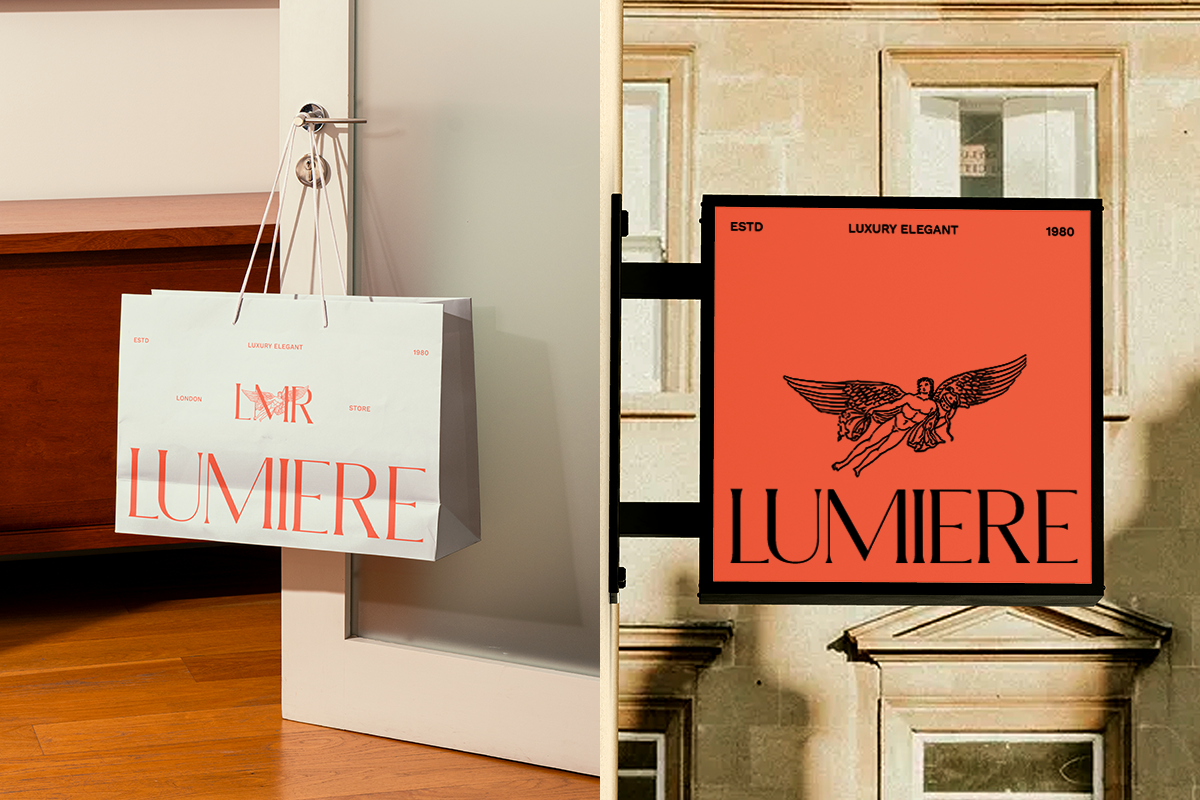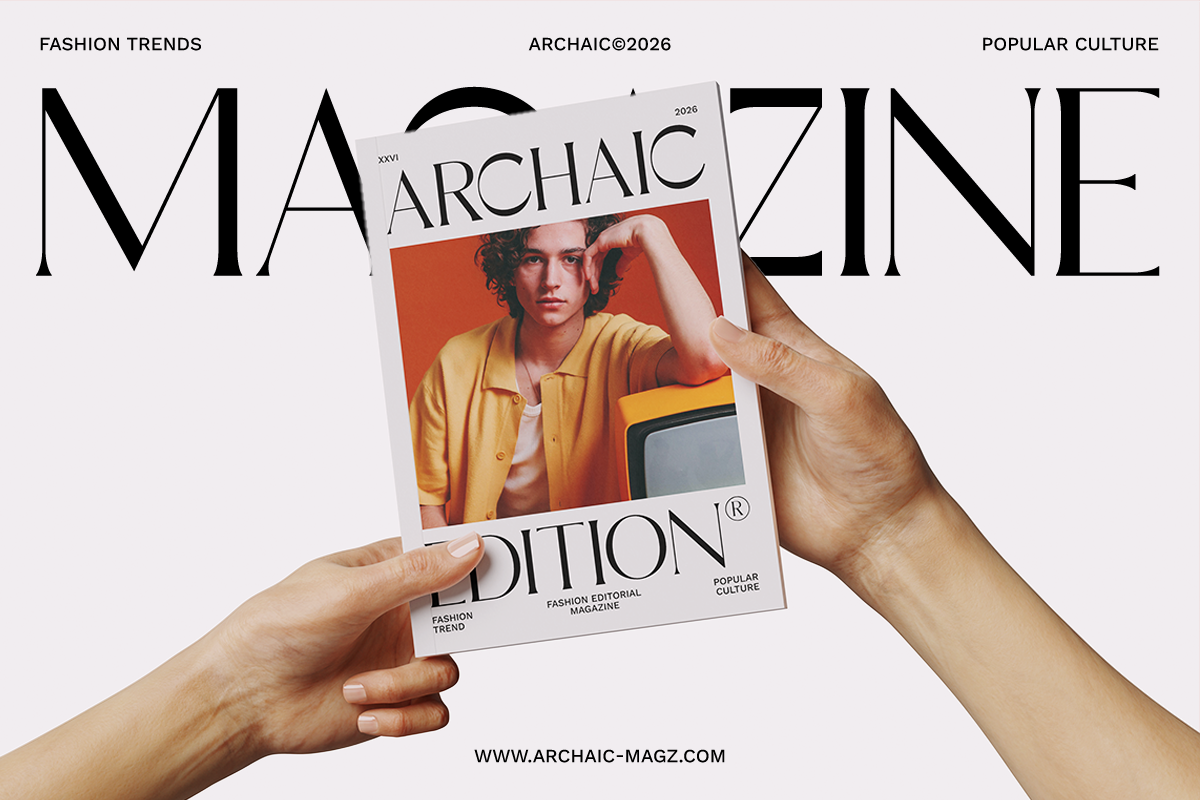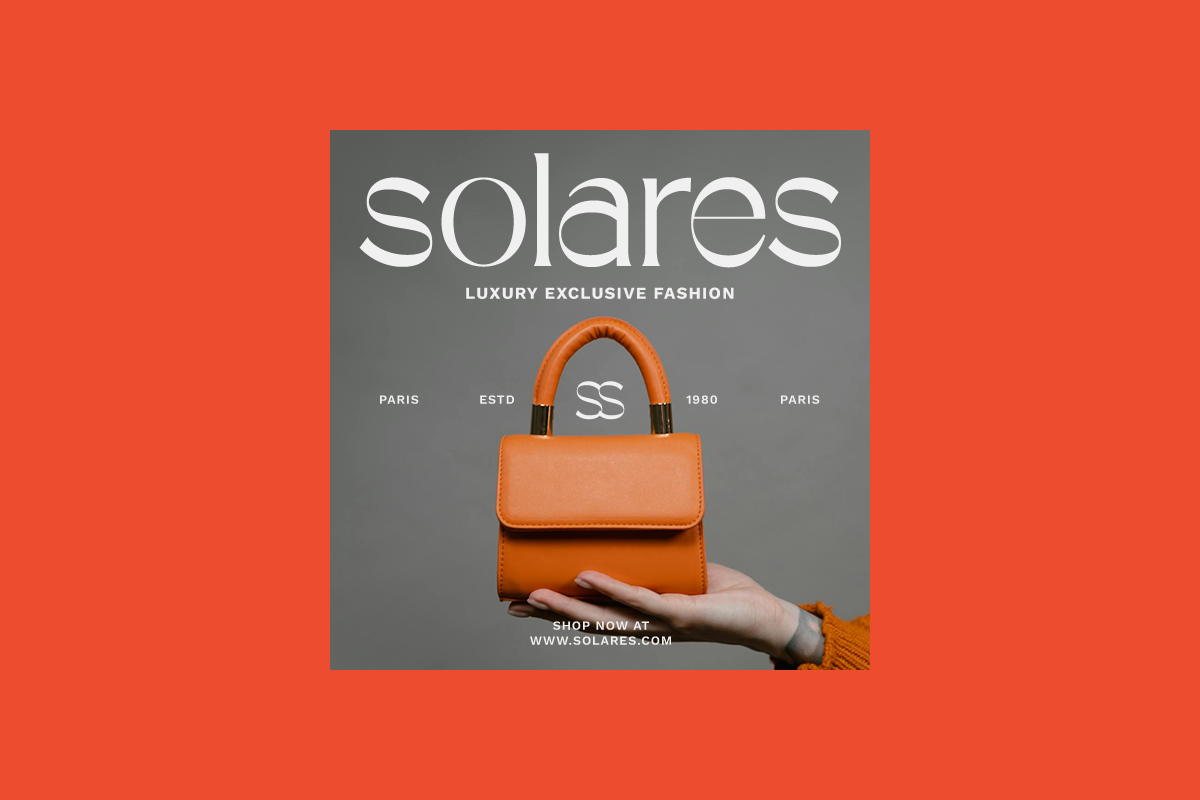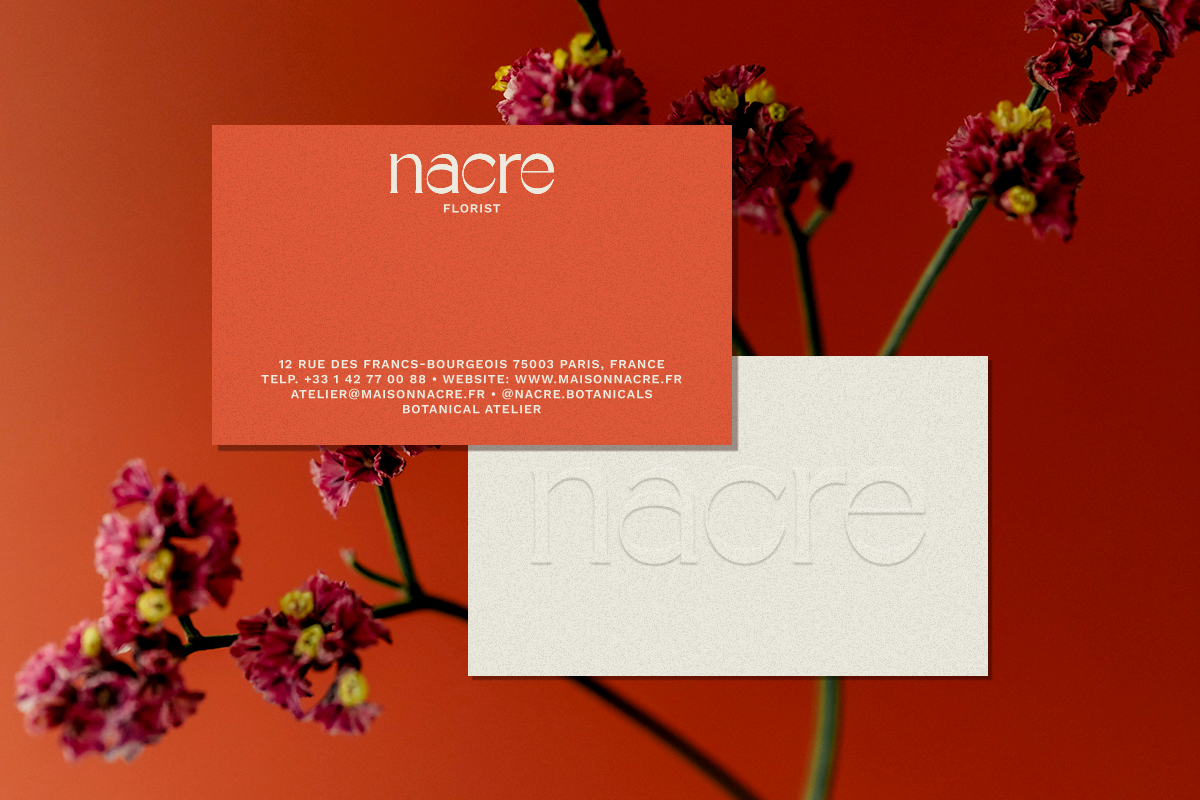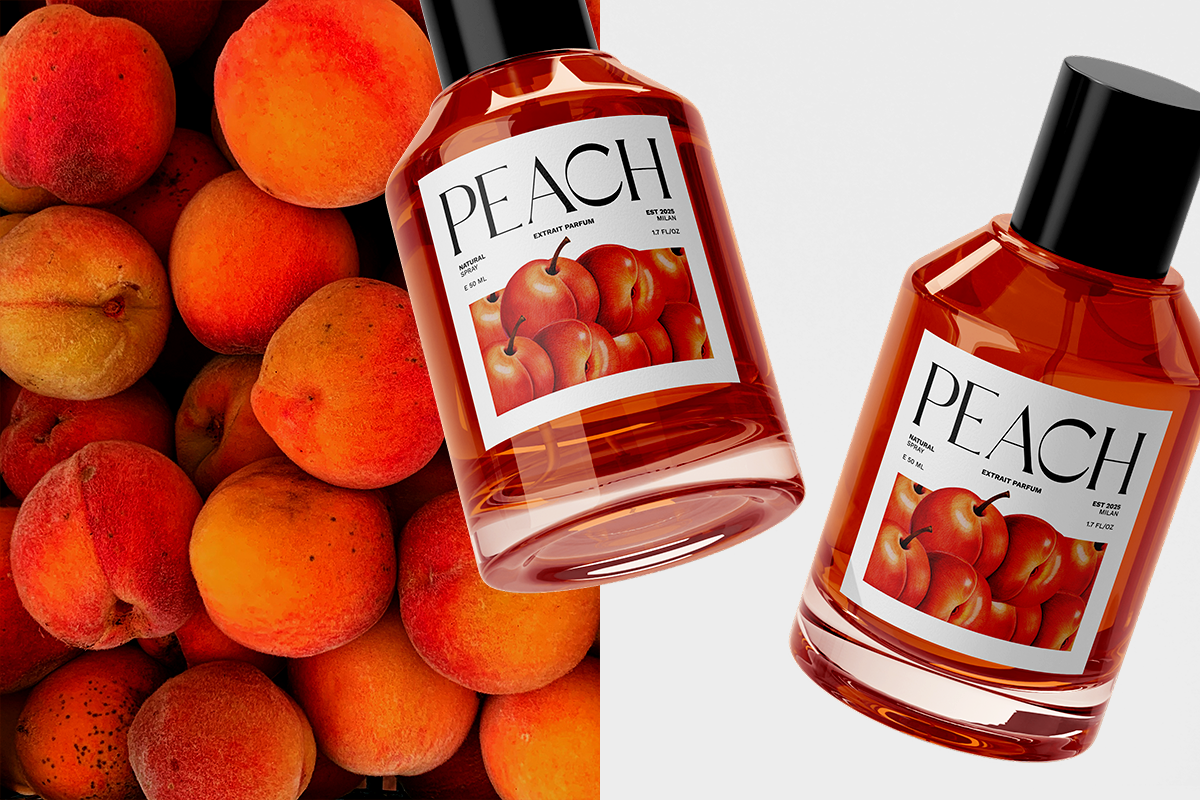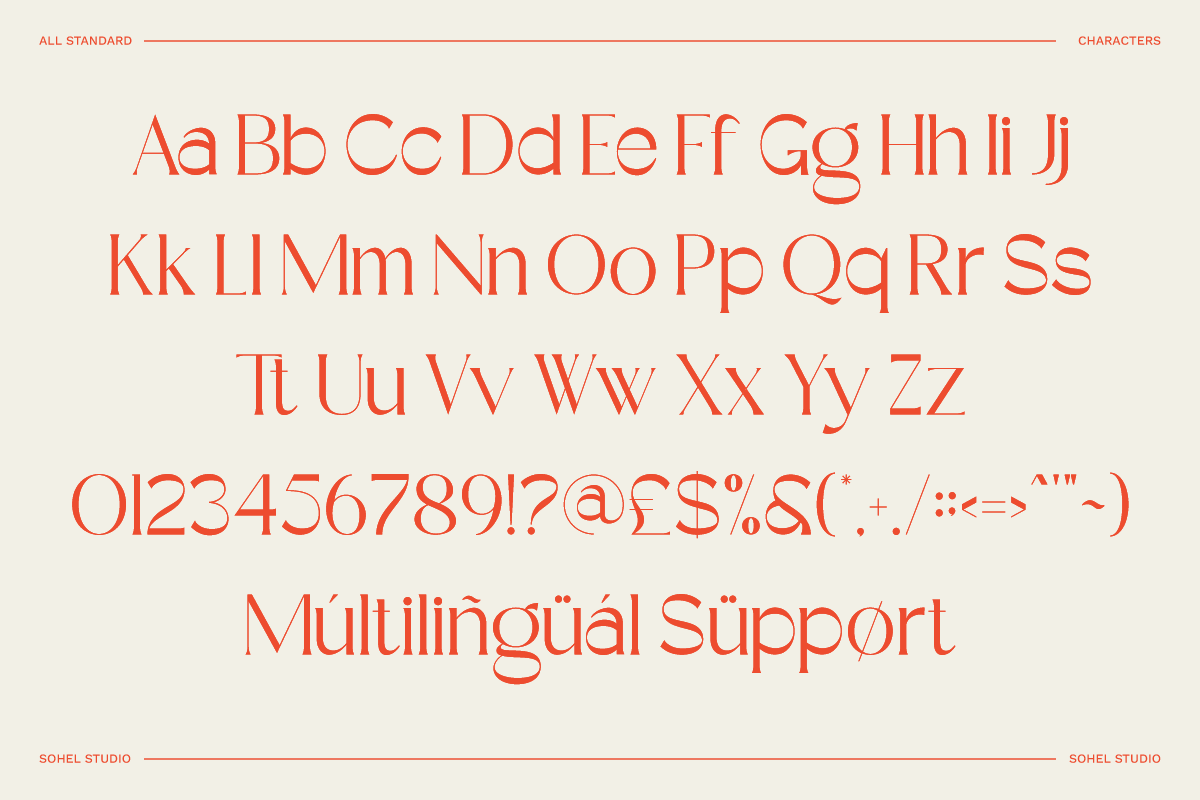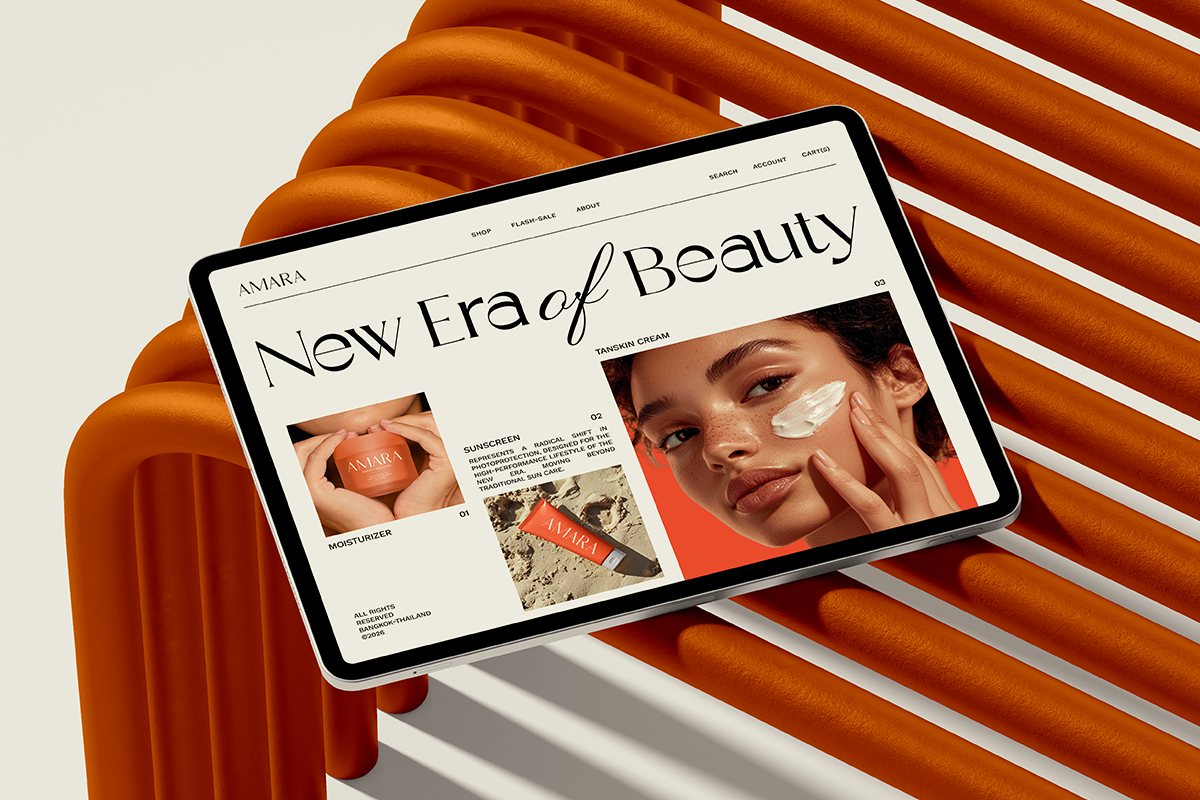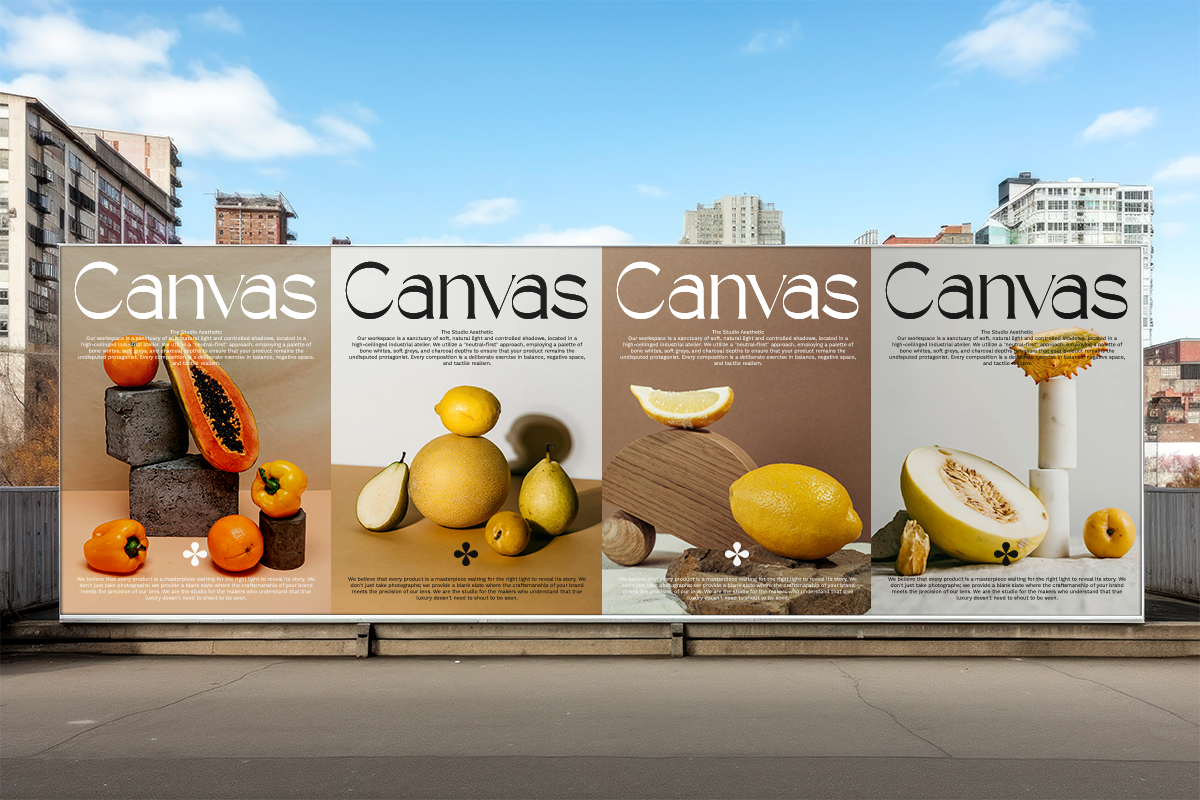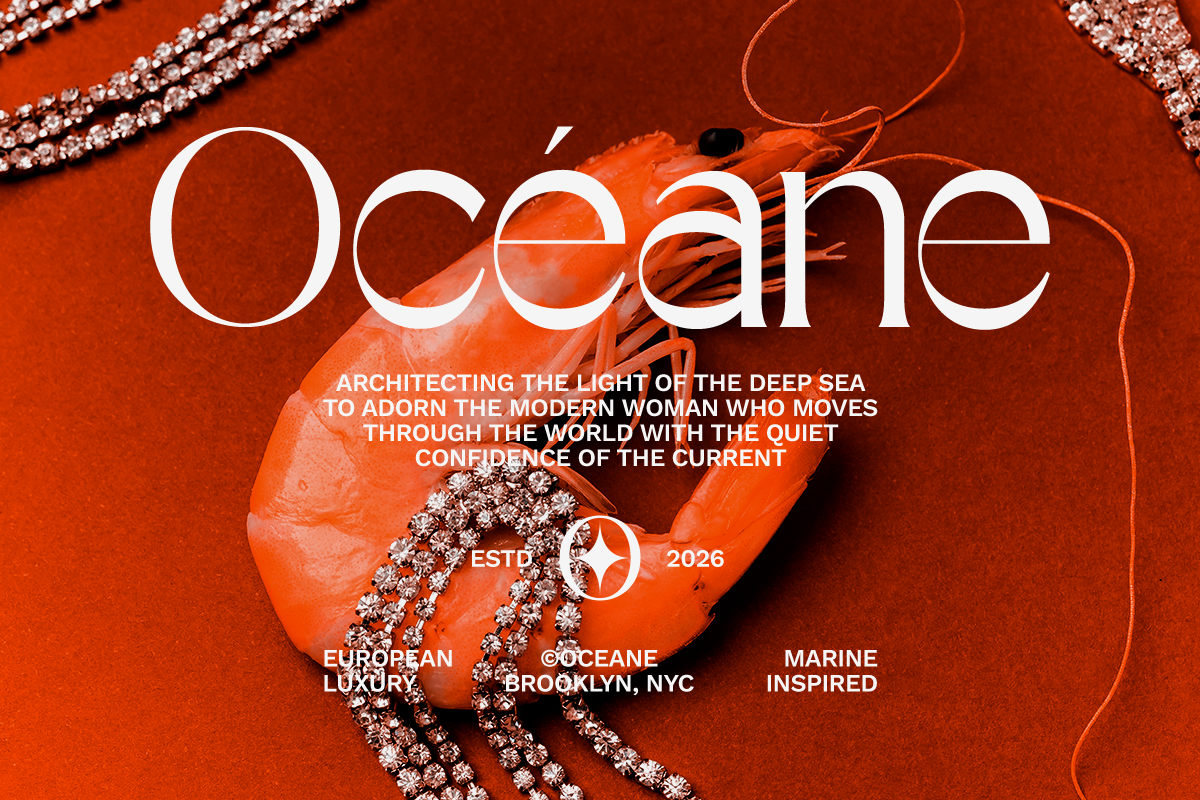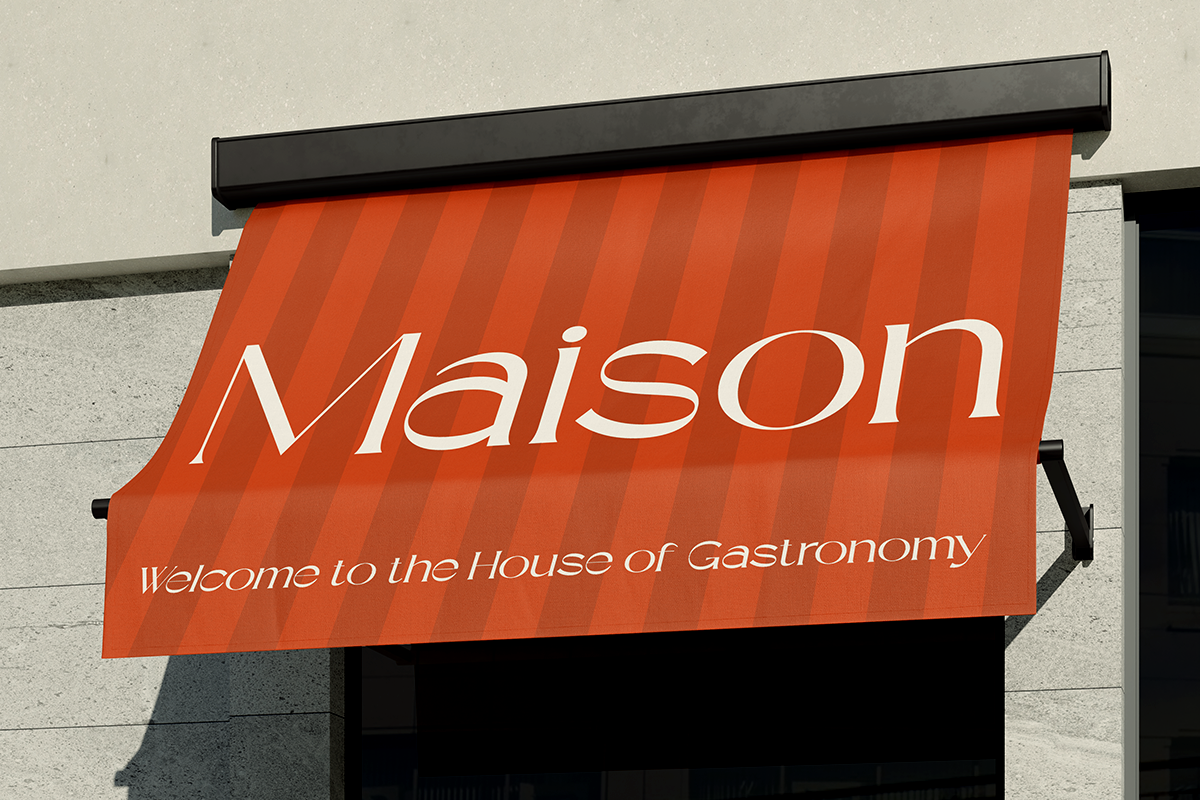
Corcela – Elegant Modern Serif
Corcela is an elegant modern serif font crafted for clean, stylish, and contemporary design projects. With its soft curves, balanced proportions, and refined letterforms, Corcela delivers a graceful yet confident look that feels modern, premium, and timeless.
Designed to shine in branding and editorial use, Corcela works beautifully for logos, fashion brands, magazines, packaging, social media content, and advertising. Its minimalist structure and elegant rhythm make it highly versatile for both headlines and visual identities that demand clarity with personality.
Whether you are building a fashion brand, creating a modern logo, designing editorial layouts, or working on premium packaging, Corcela brings warmth, sophistication, and visual harmony to your typography.
- Elegant modern serif typeface
- Clean and refined letterforms
- Numerals and punctuation
- Brand identity
- Fashion branding
- Editorial design
- Logo design
- Packaging
- Magazine headlines
- Social media graphics
- Advertising
- Minimalist design
Why Choose Corcela?
If you’re looking for a modern serif font that feels elegant, soft, and premium, Corcela is the perfect choice. Its refined shapes and contemporary style help your designs feel polished, professional, and effortlessly stylish.